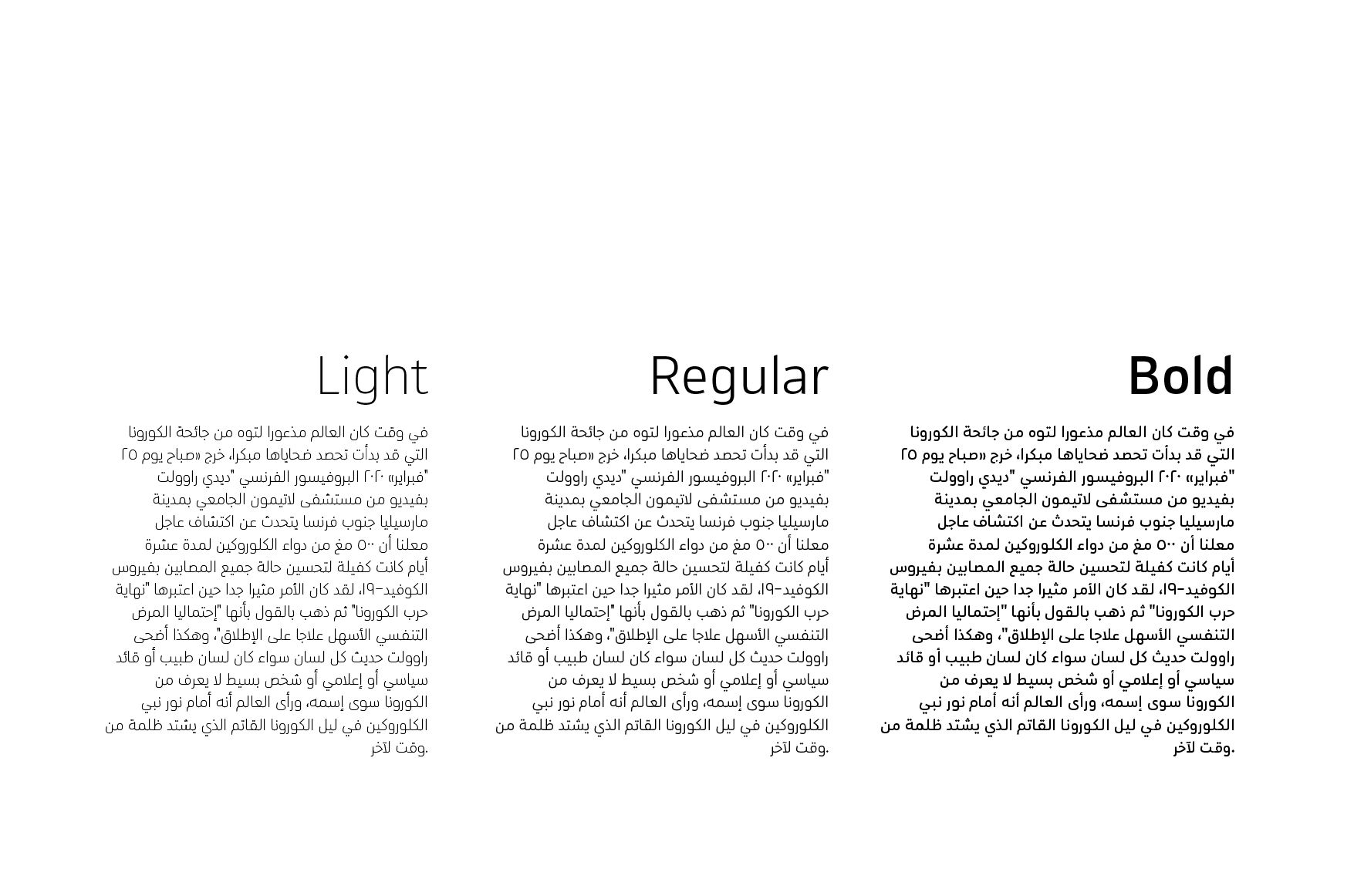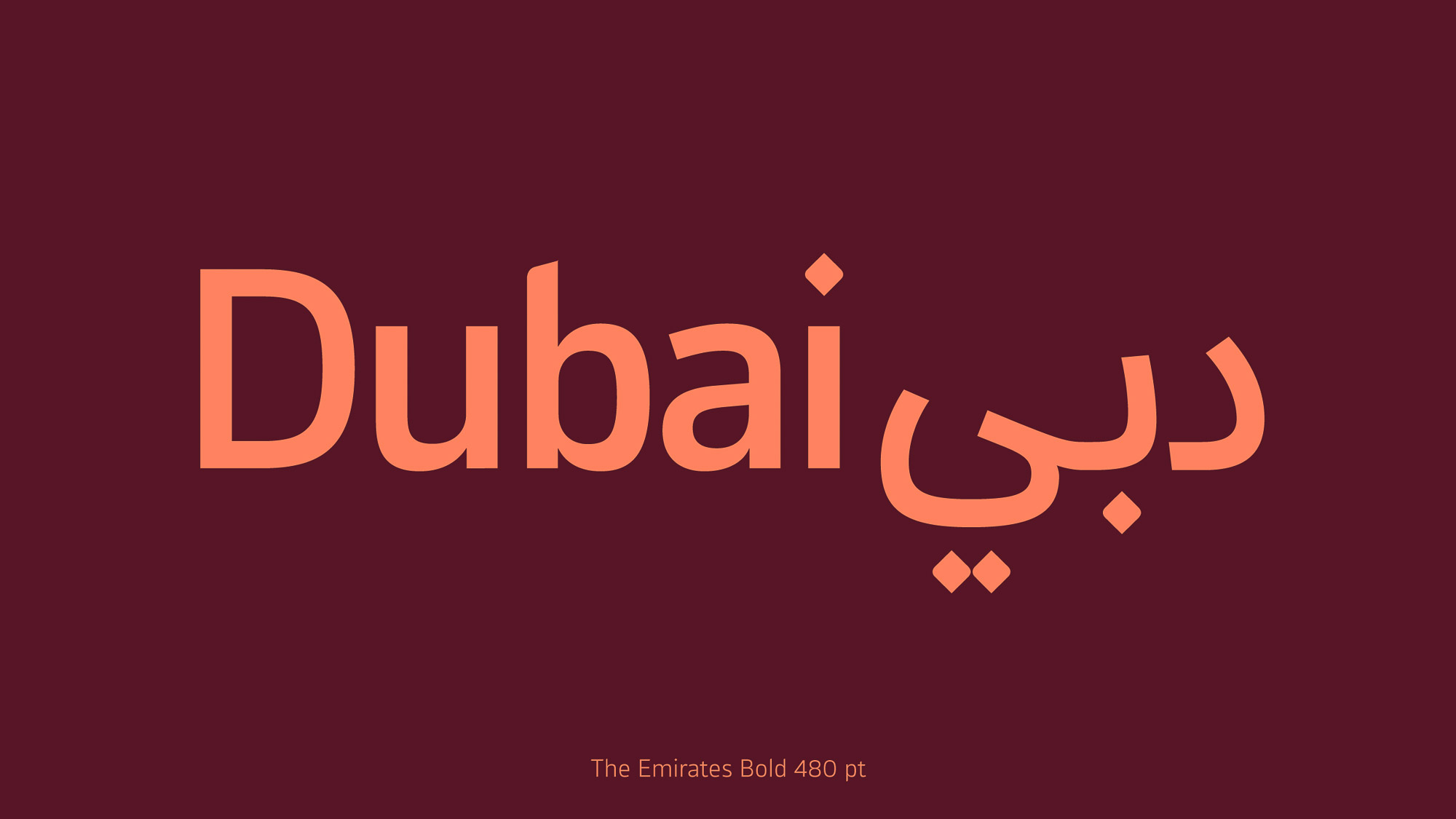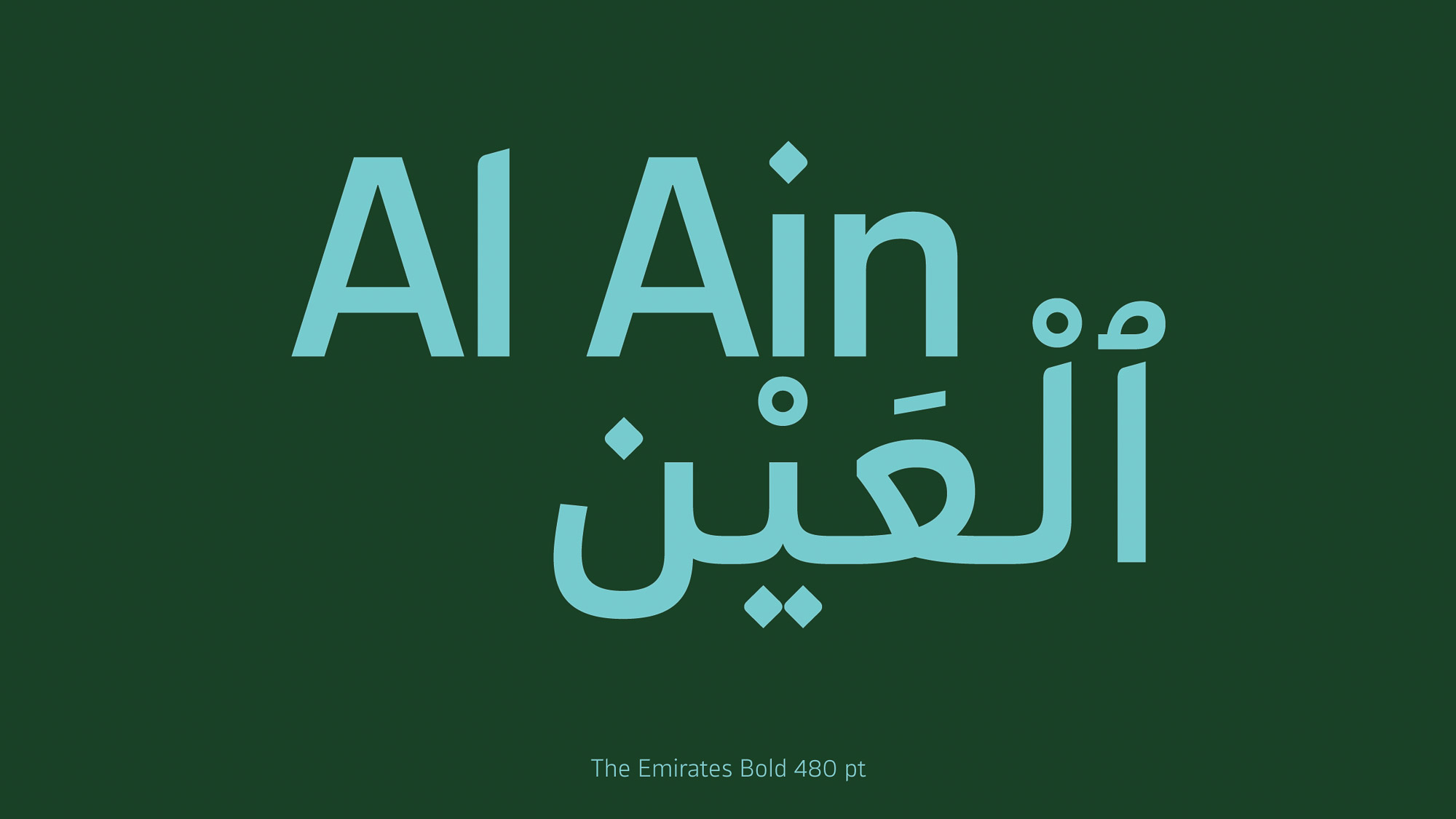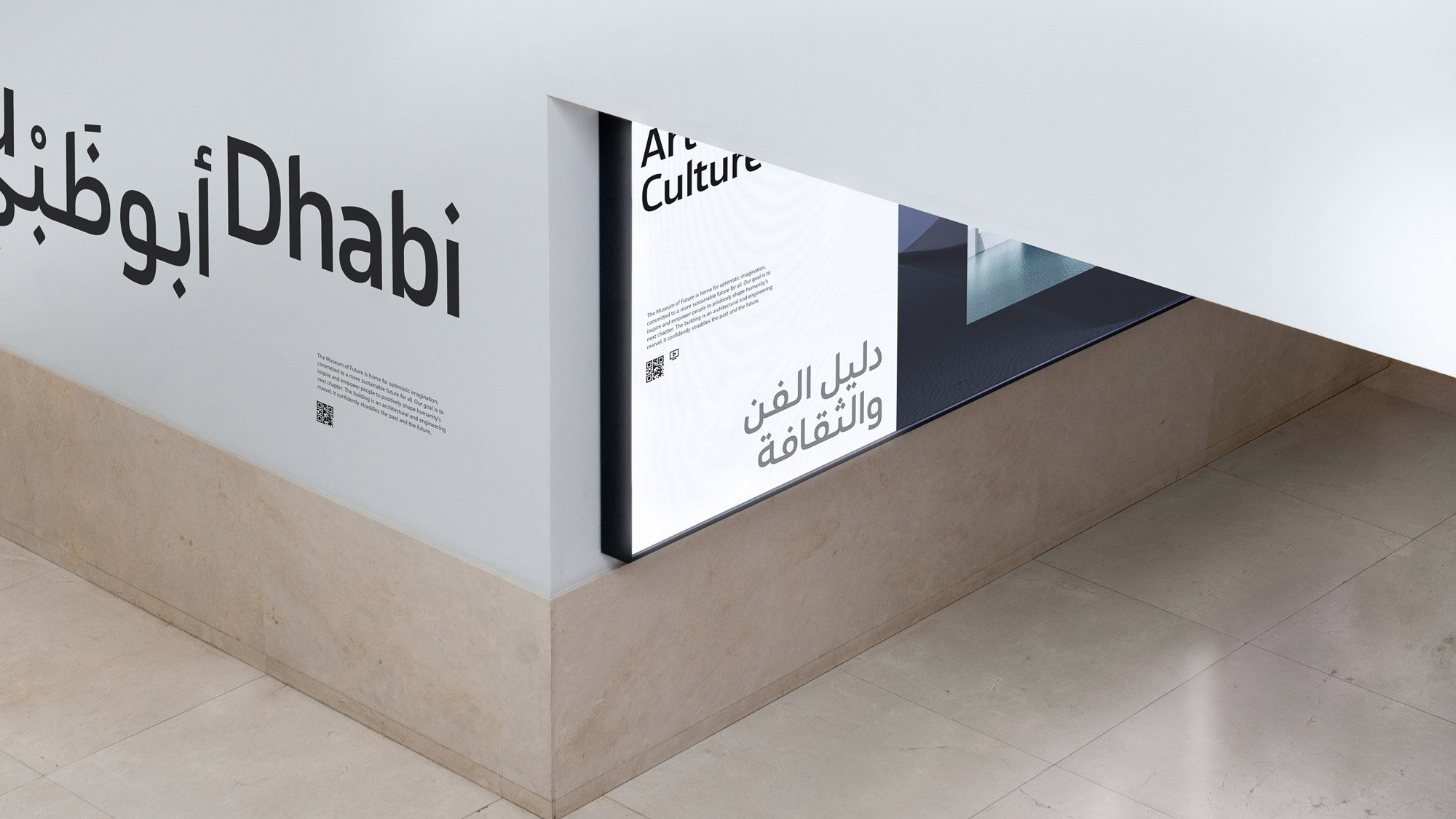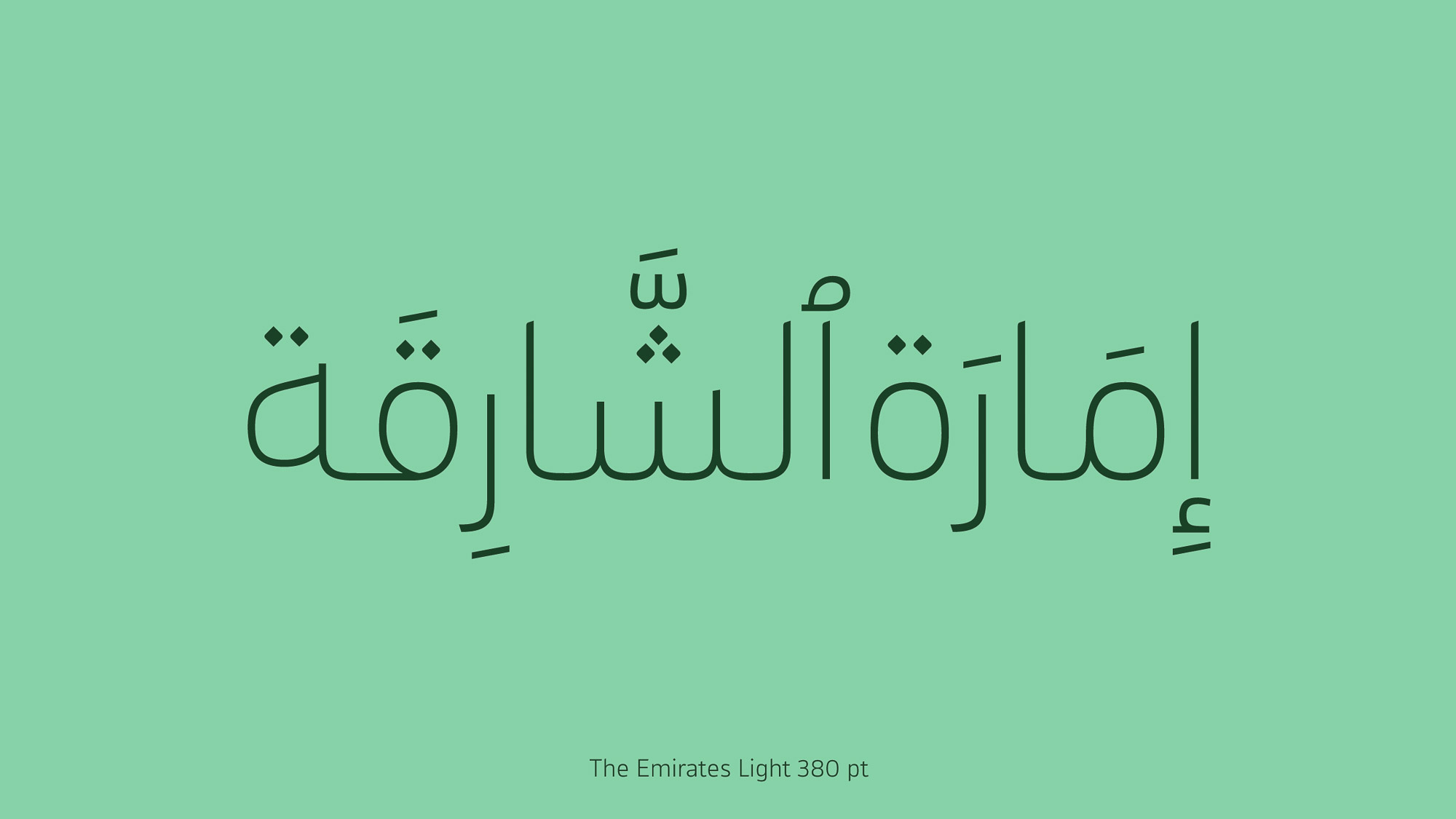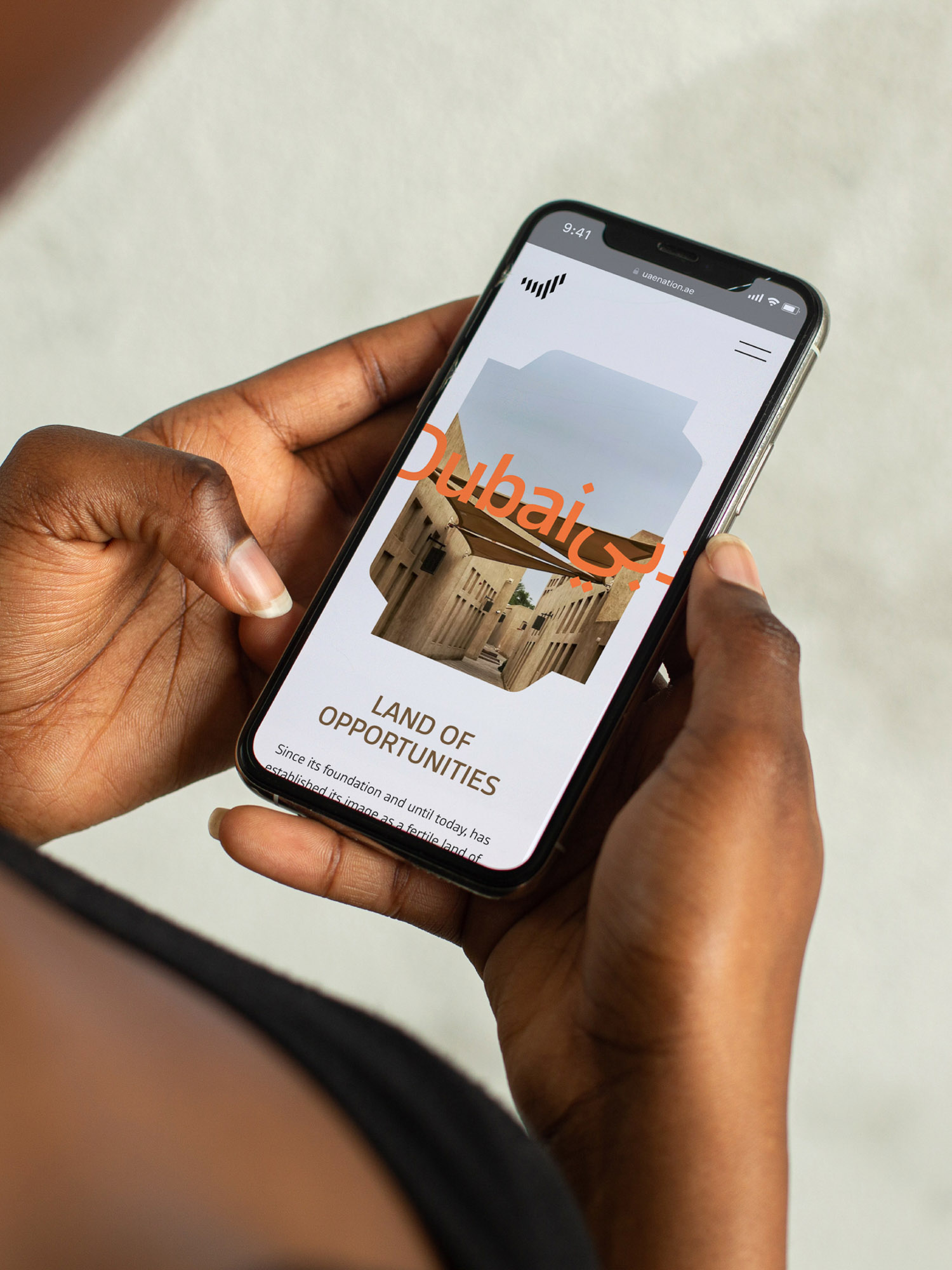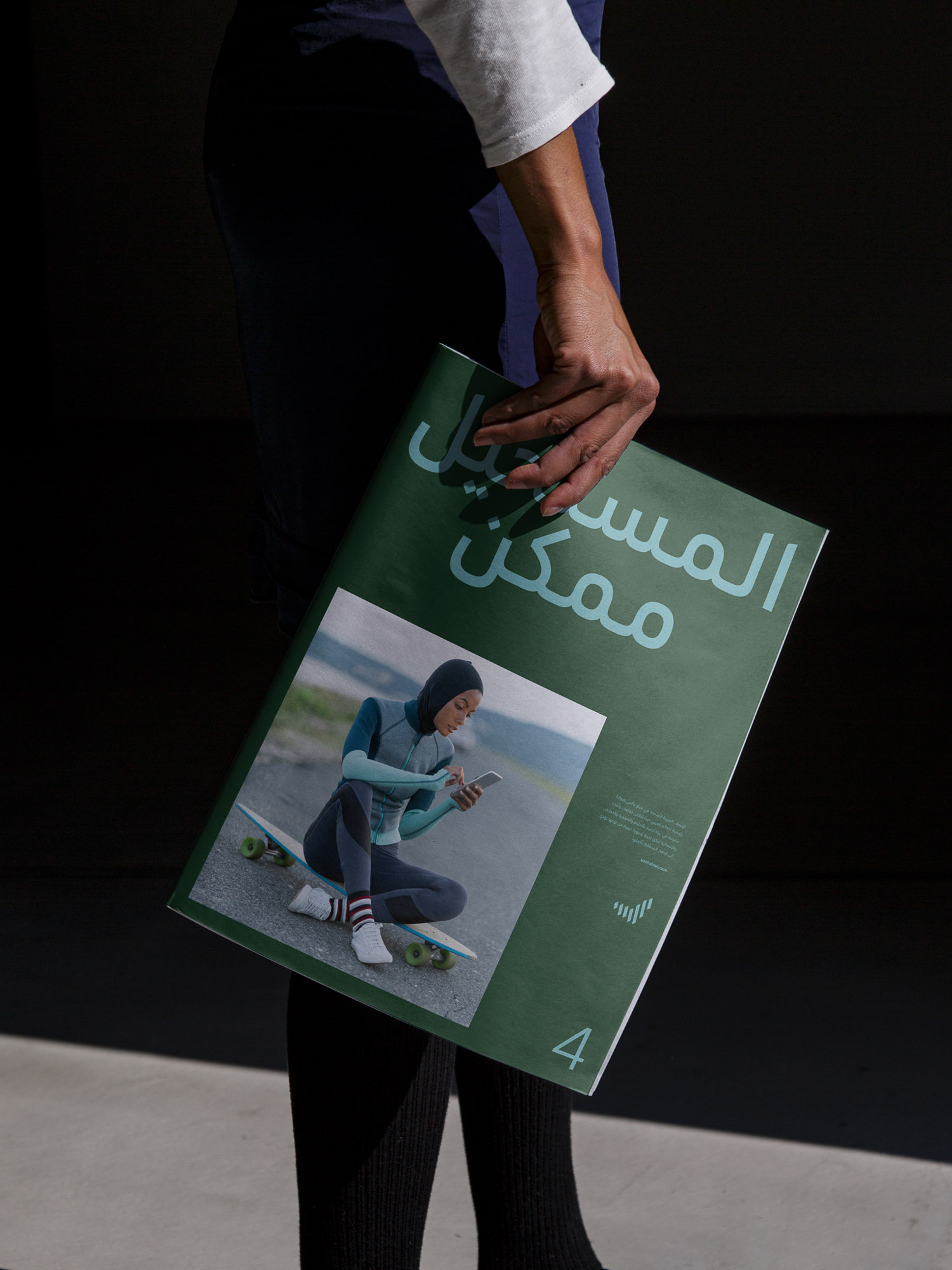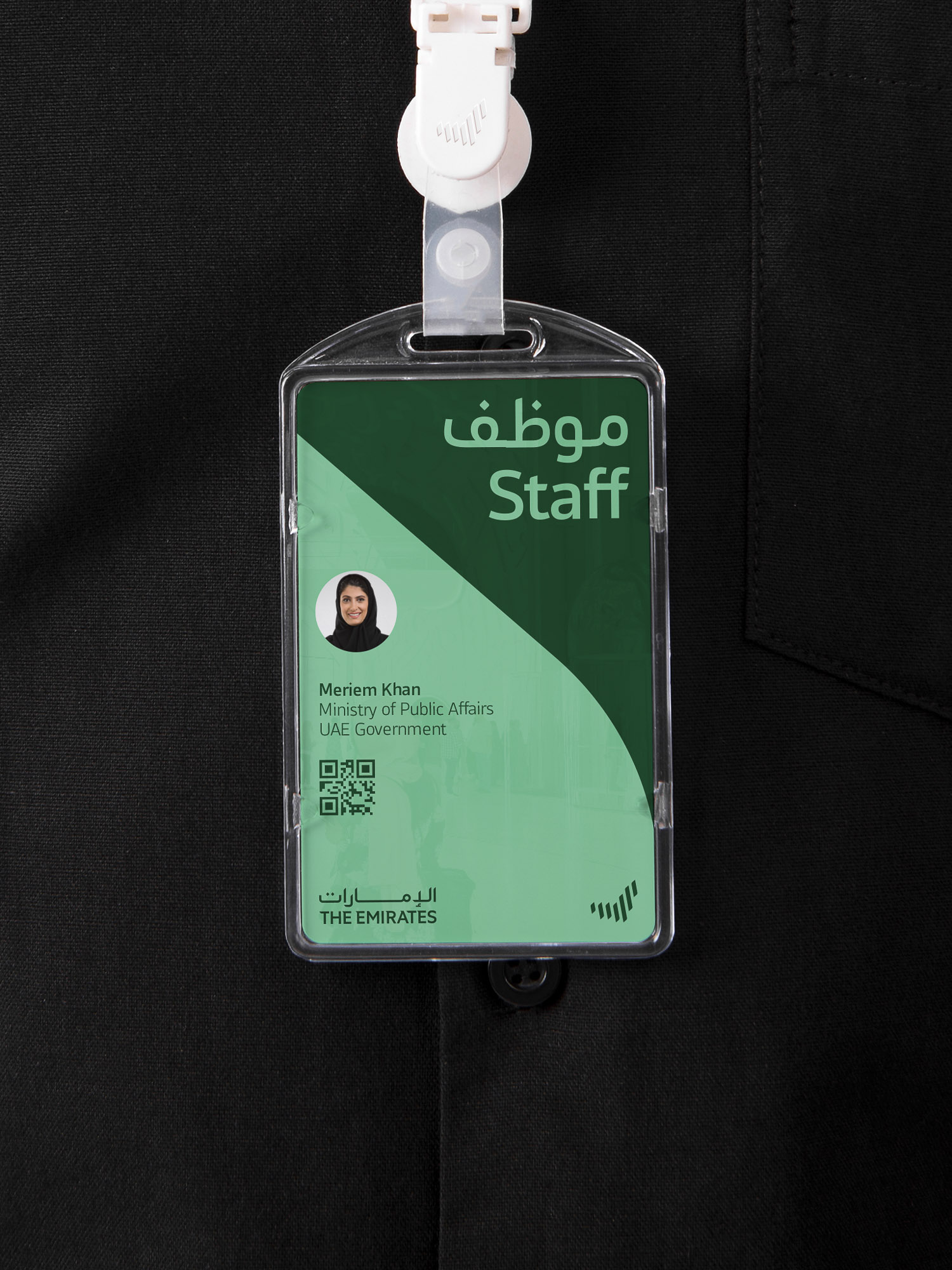
The Emirates
The Emirates blends heritage and innovation, symbolising the nation’s values and vision.
On November 2, 2019, the UAE launched a national project to design and create the UAE Nation Brand logo that represents the country to the world. Through highlighting the distinctive features of the Emirates, the Nation Brand aims to share the country’s journey of development and progress as an inspiring success story.
Collaborating with Ruya International we crafted a custom typeface pivotal to The Emirates’ nation branding. This bespoke font beautifully blends heritage and innovation, symbolising the nation’s values and vision. It unifies communication, sharing The Emirates’ story worldwide and fostering national pride.